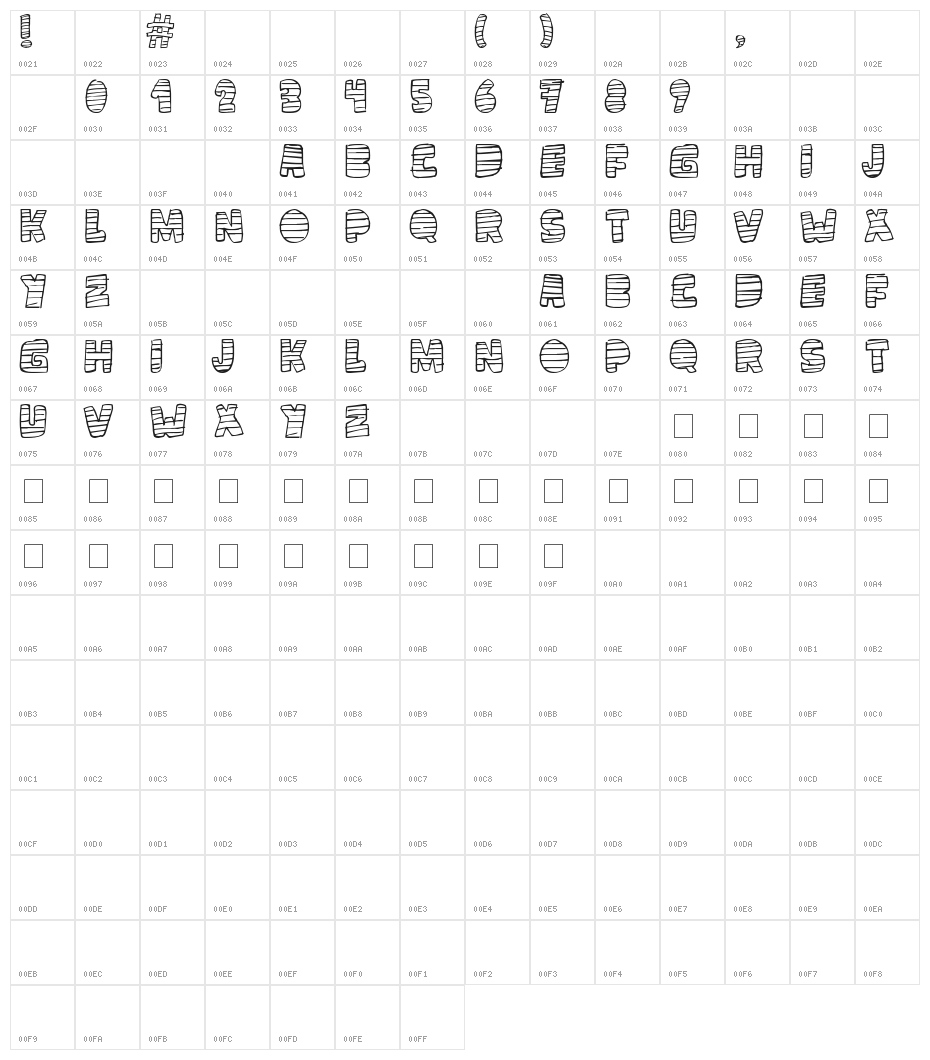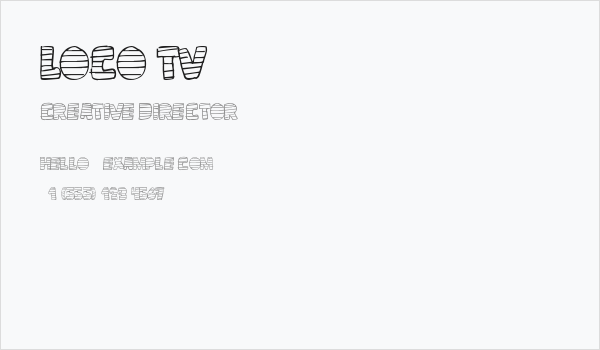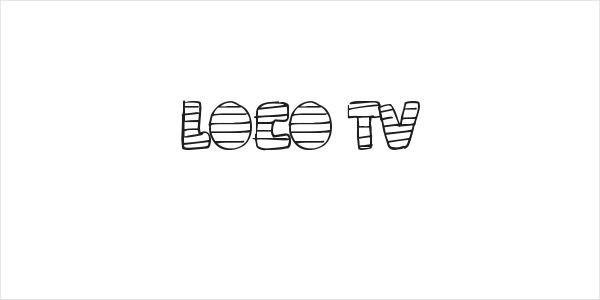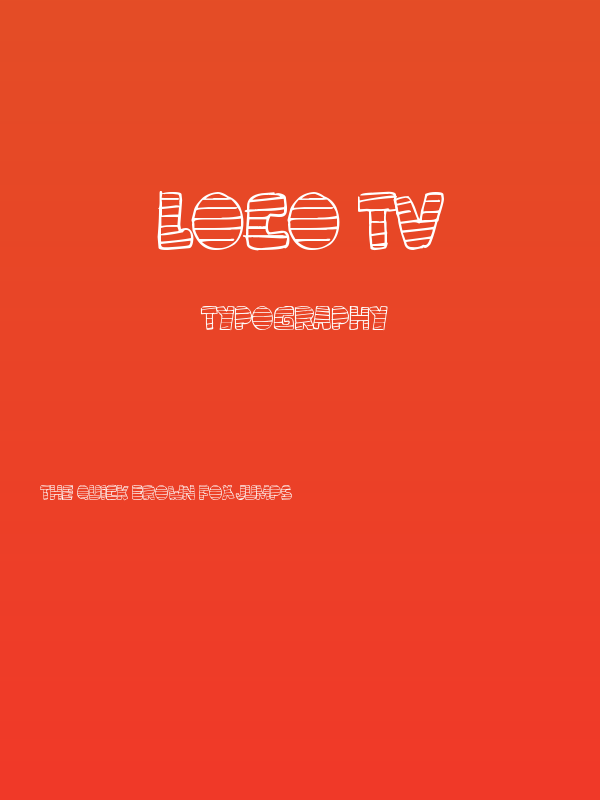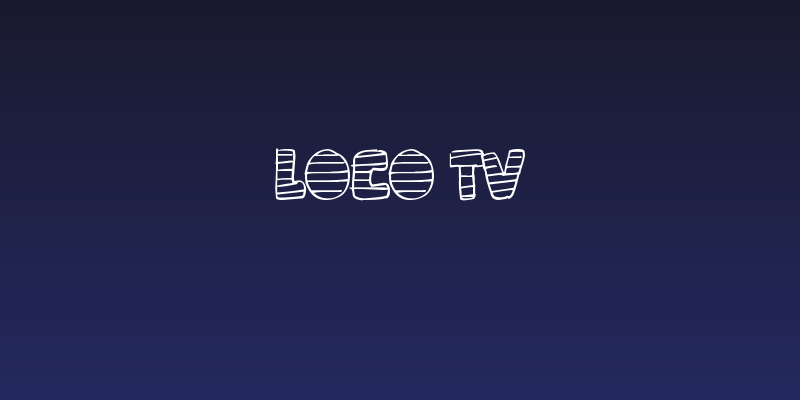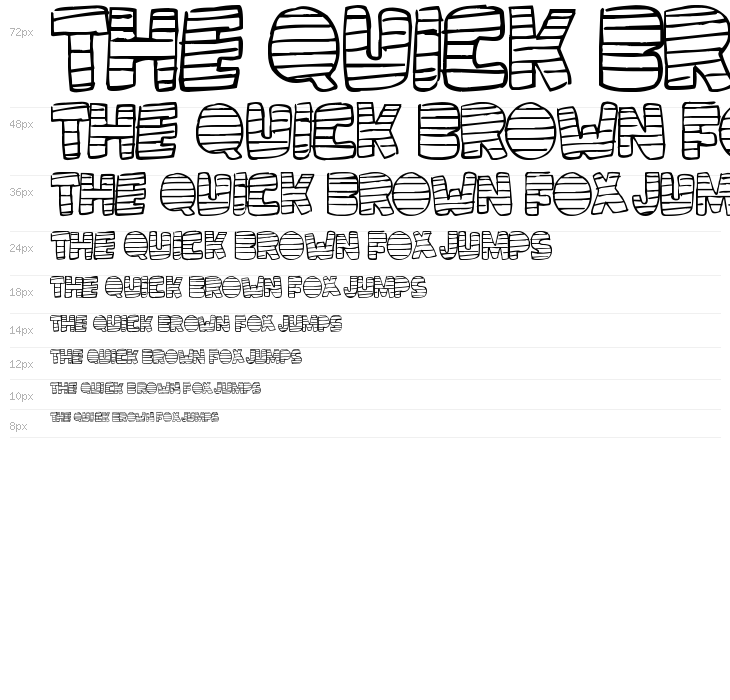
loco tv Font
loco tv Description
This font features a playful and bold design with a unique striped pattern filling each character. The letters are uppercase and lowercase, with numbers and a selection of special characters. The strokes are thick, giving it a strong presence, while the striped pattern adds a whimsical and fun element. The characters are rounded, contributing to a friendly and approachable feel. This font is highly decorative, making it suitable for eye-catching designs where a sense of fun and creativity is desired.
LOCO-TV UPPERCASE
LOCO-TV LOWERCASE
LOCO-TV OTHER CHARS
| Overall Style | Playful, Decorative |
| Proposed Projects | Ideal for children's book covers, playful branding, party invitations, and creative posters. |